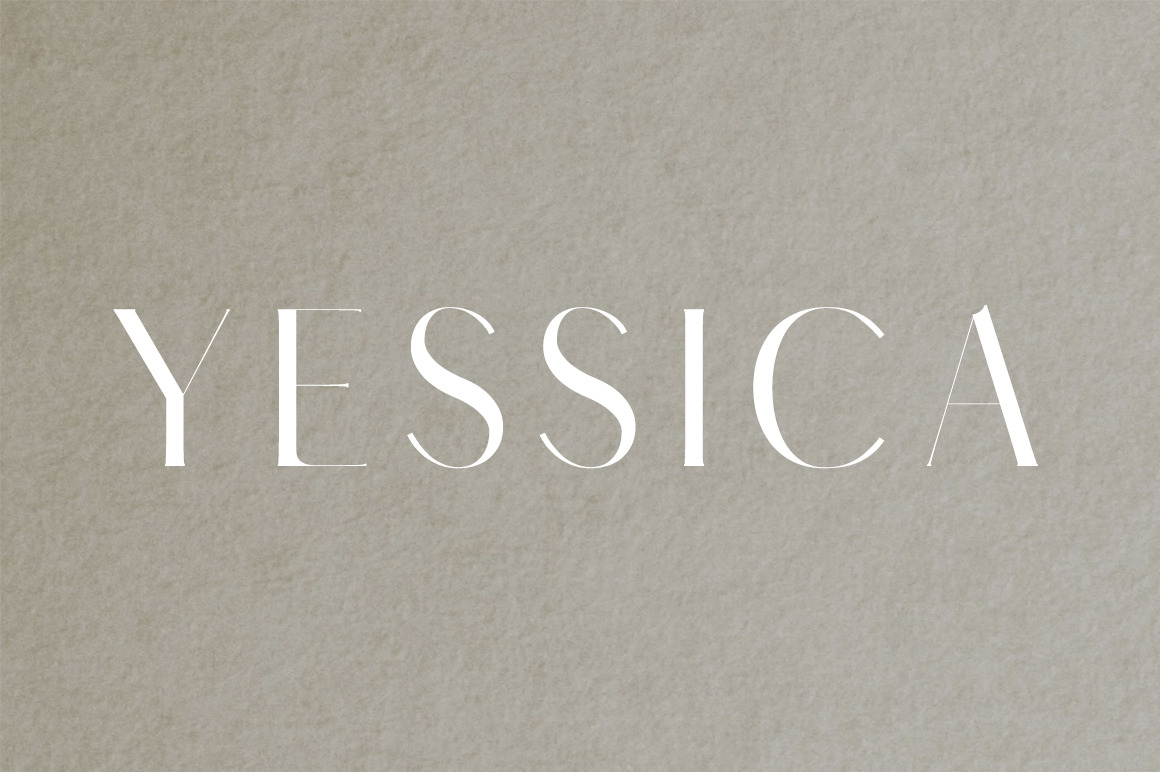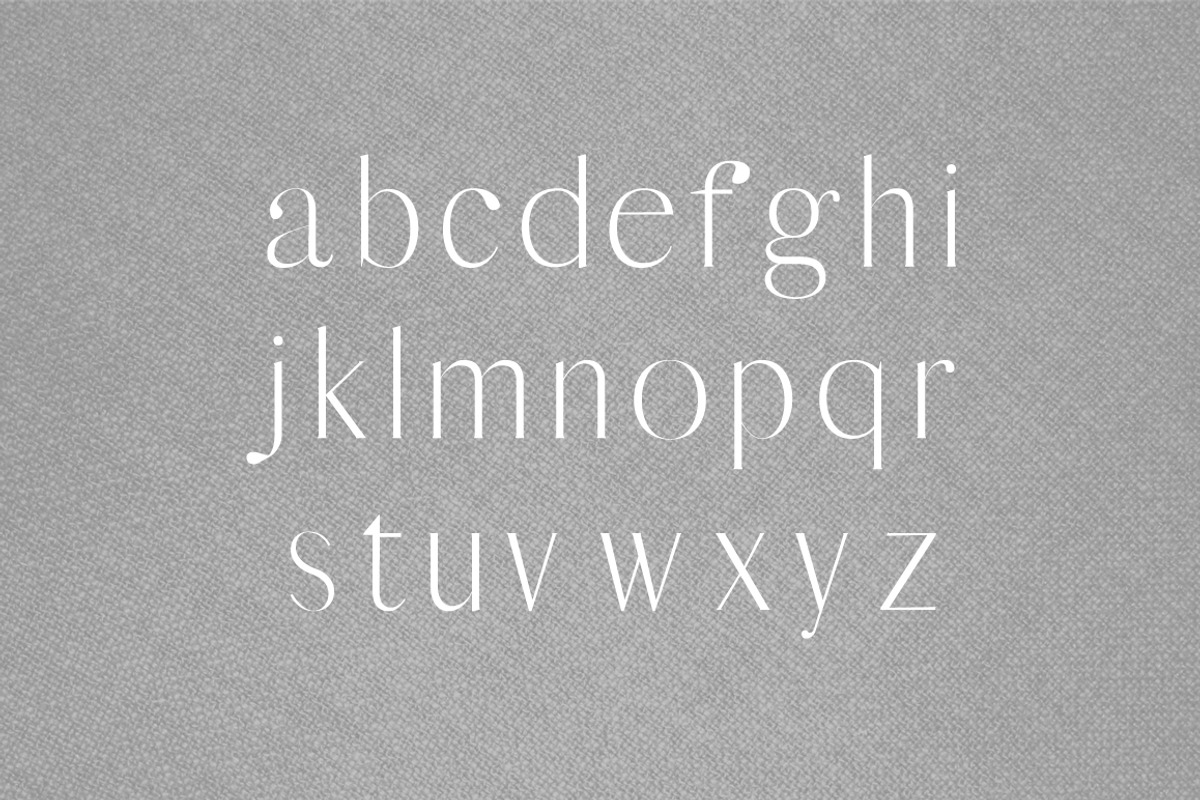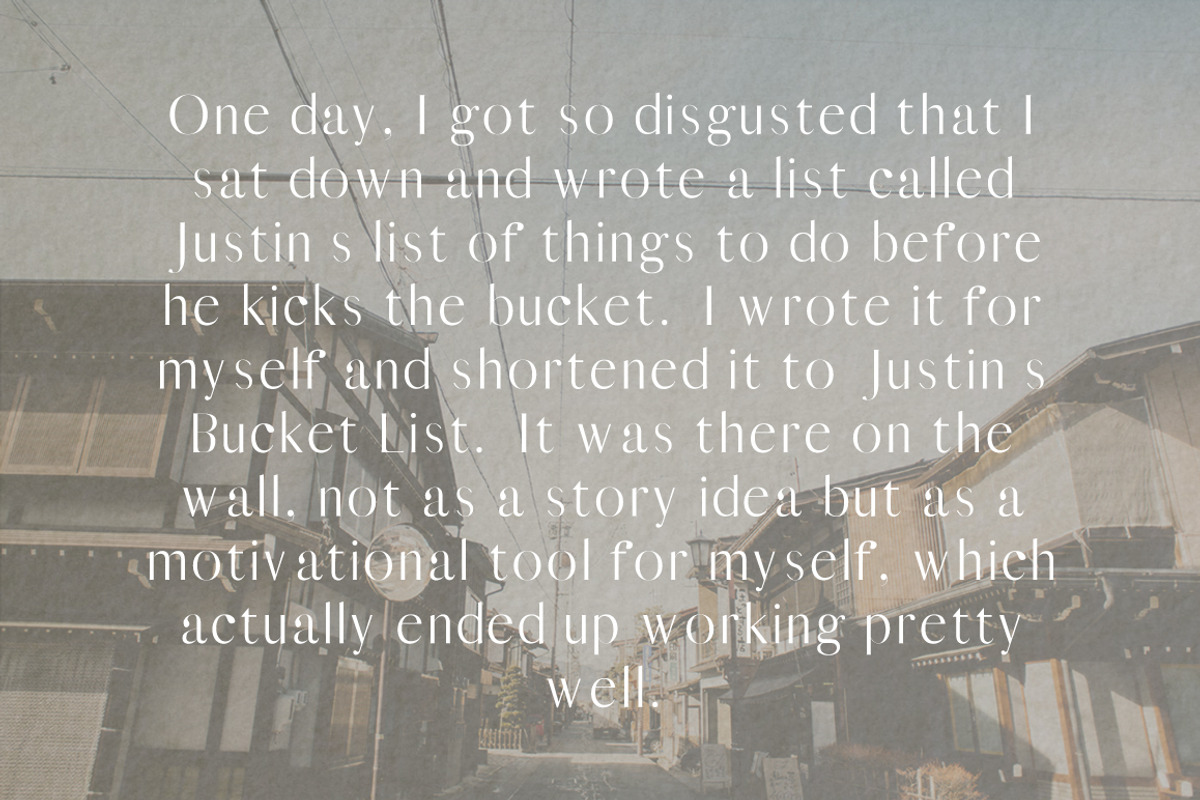
Yessica Sans Serif Fonts Pack
Yessica Sans Serif Font Family is a set of 5 weights font family. It is good for making creative templates and stationary. Yessica typeface suits best for modern / clean designs, logos, headlines, banners and templates etc. It looks gorgeous in all caps with a wide-set spacing if you want to try a classy look, or beautiful on its own in capital and lowercase letters for something completely timeless.